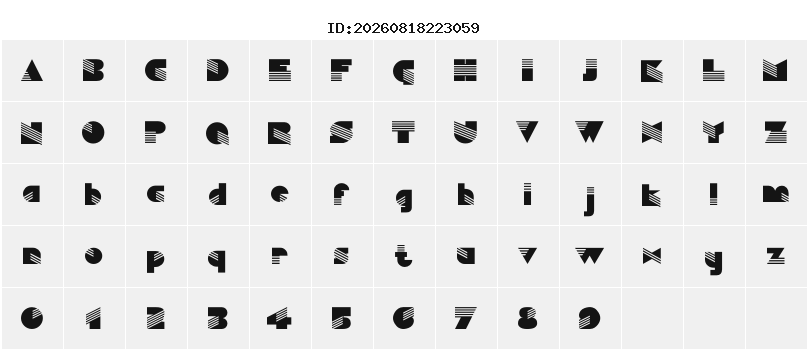
• Font Name: Simulata
• Full Font Name: Simulata
About Simulata.otf
Simulata.otf is a modern, elegant sans-serif font designed for ultimate readability and visual harmony. Perfect for branding, headlines, web design, and print materials.